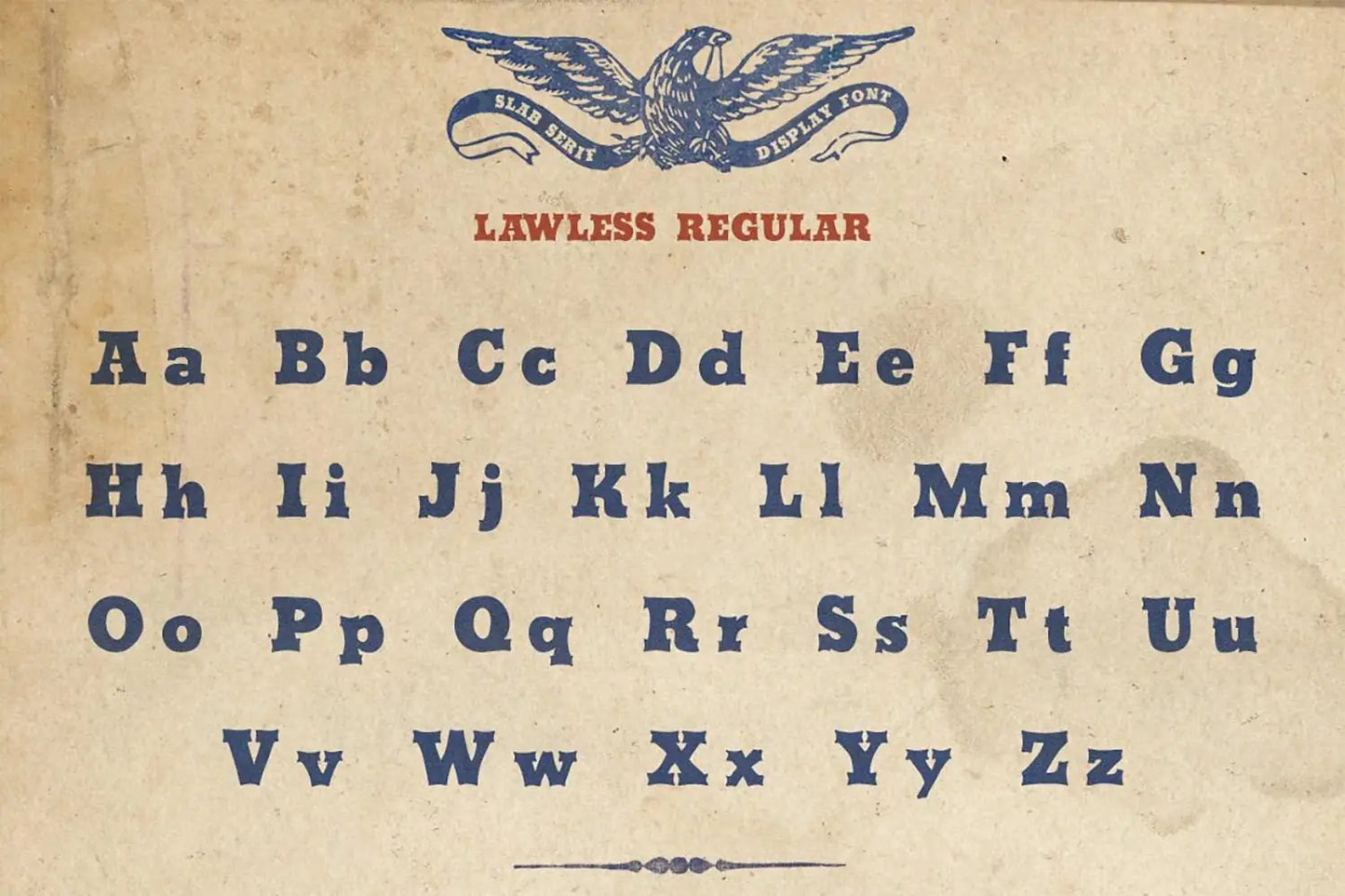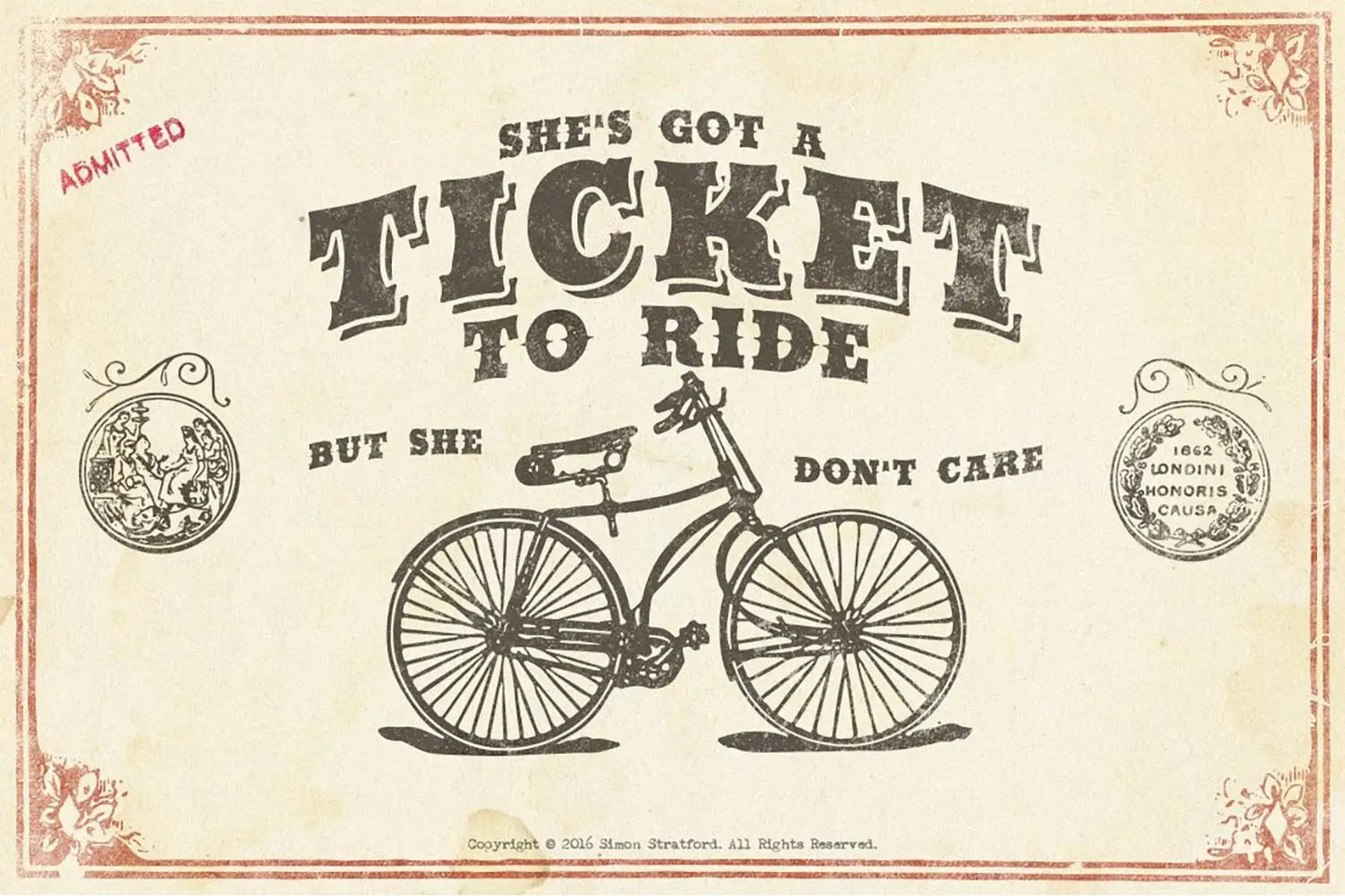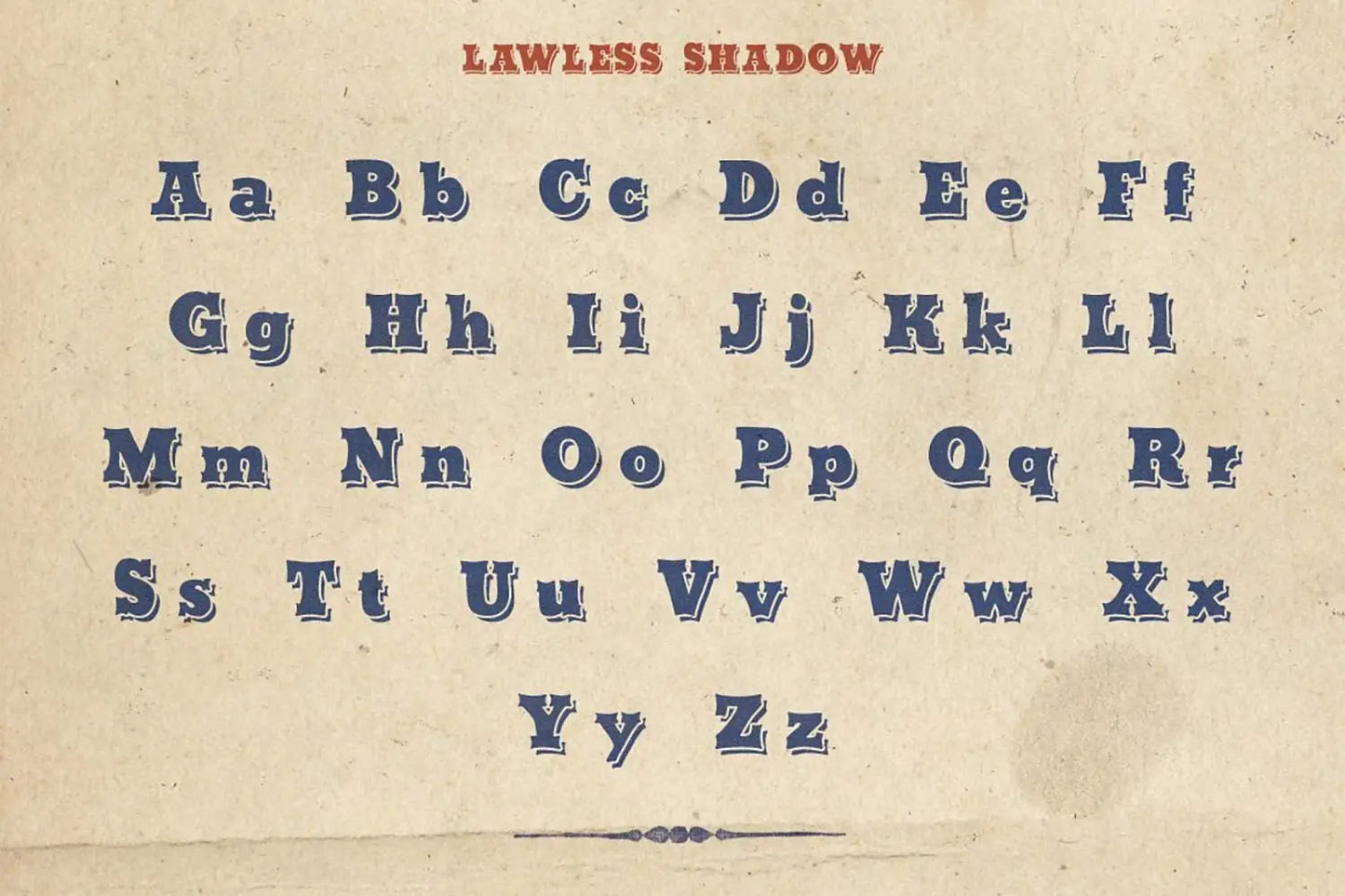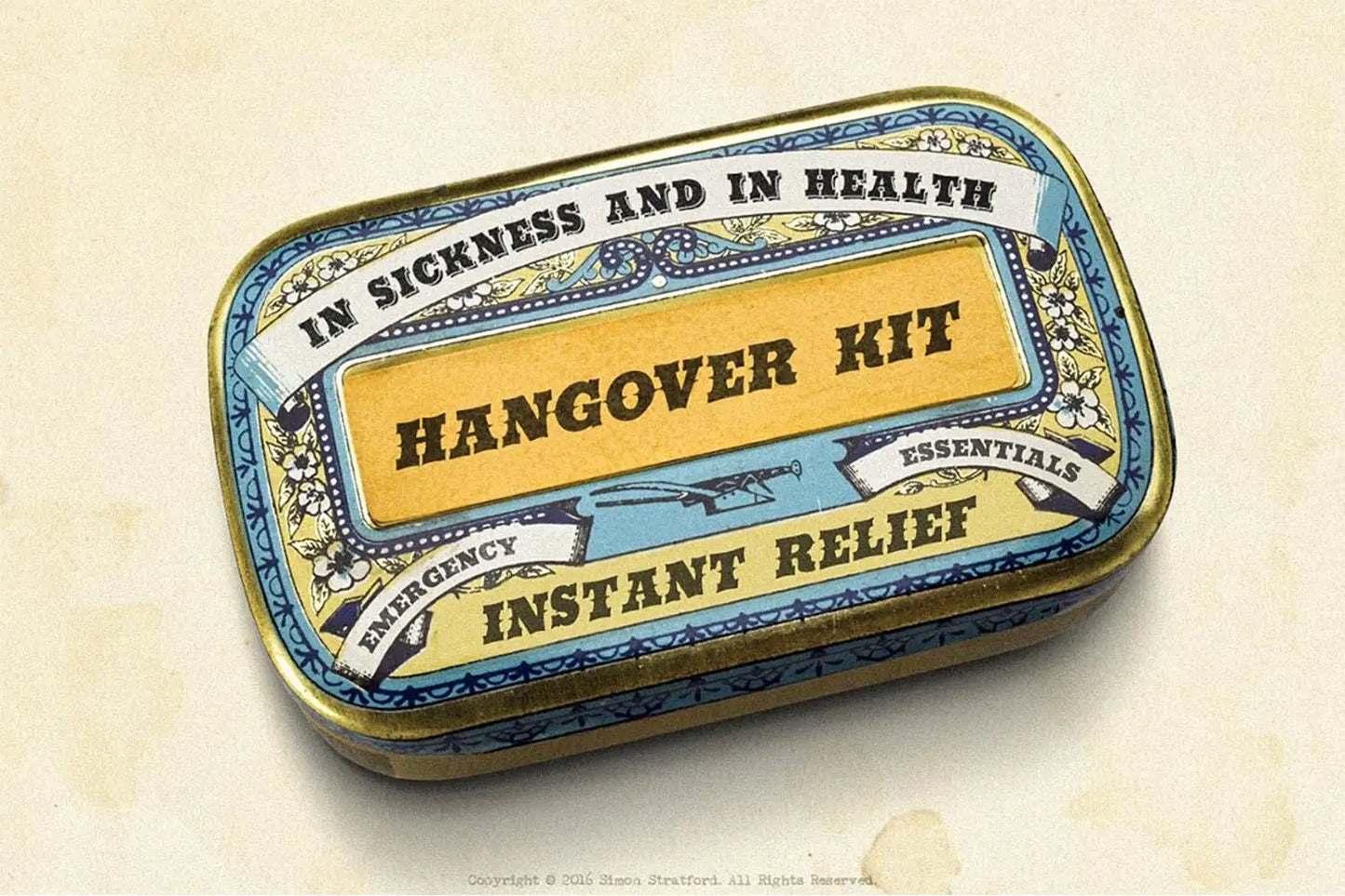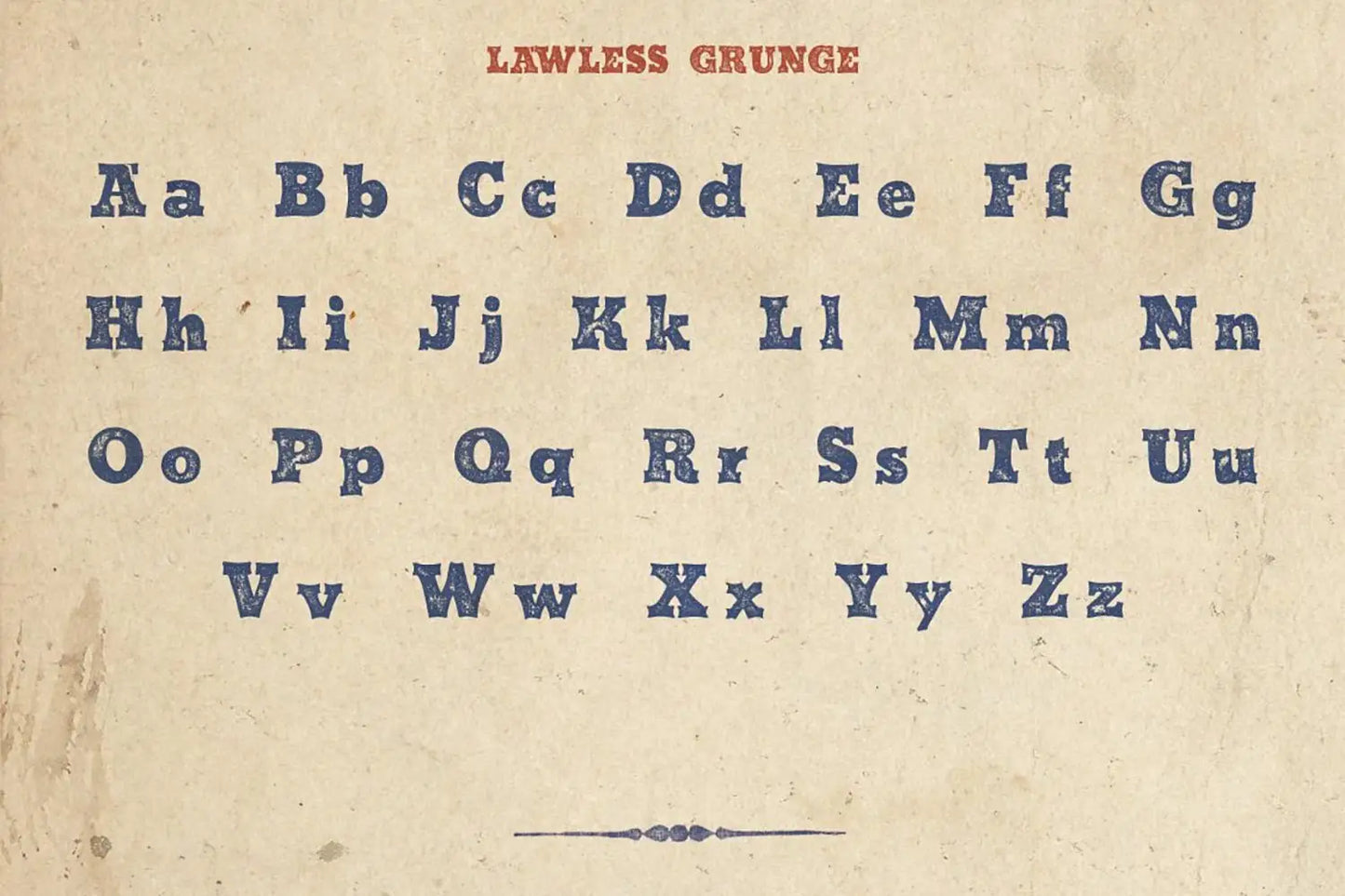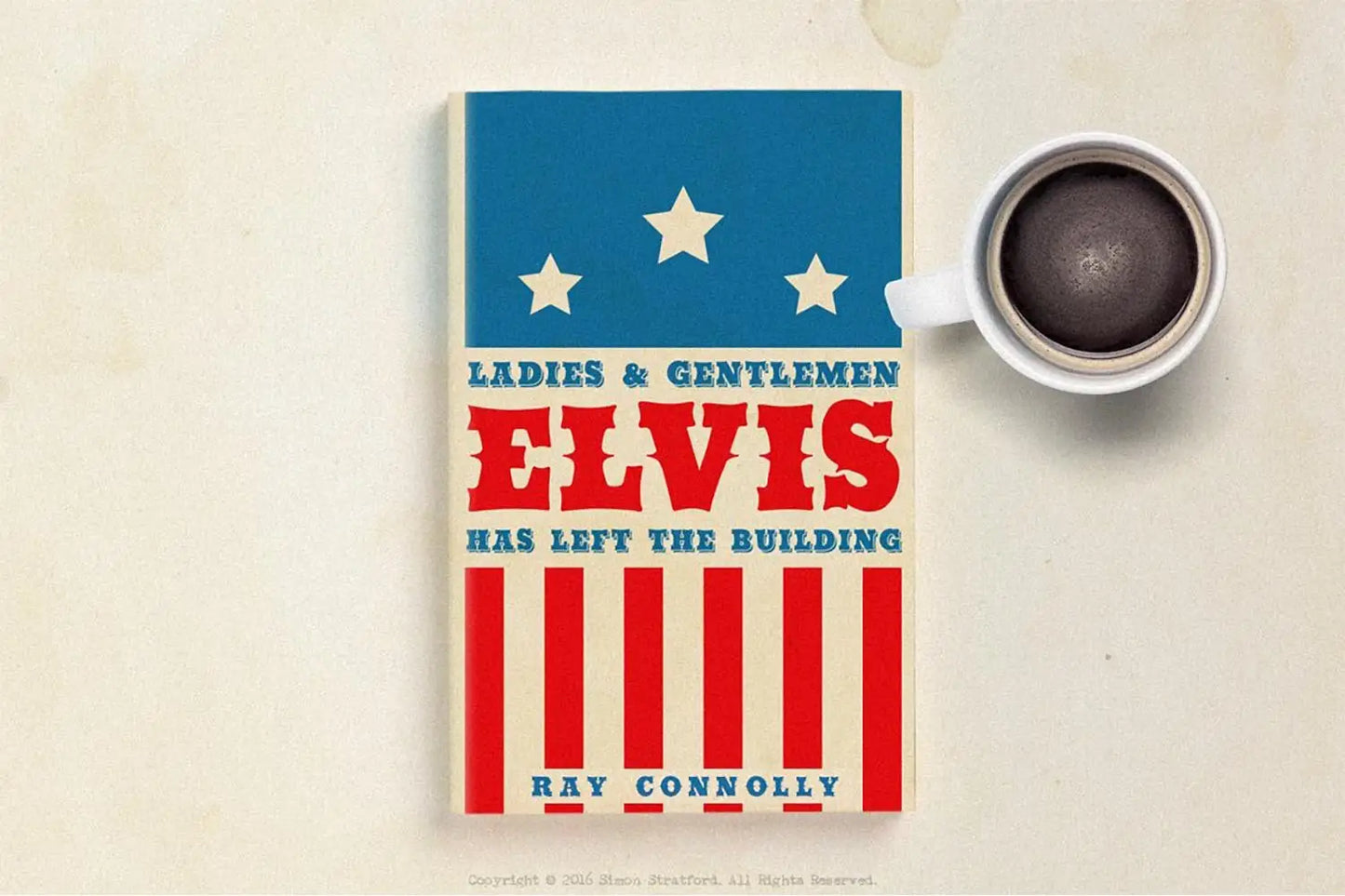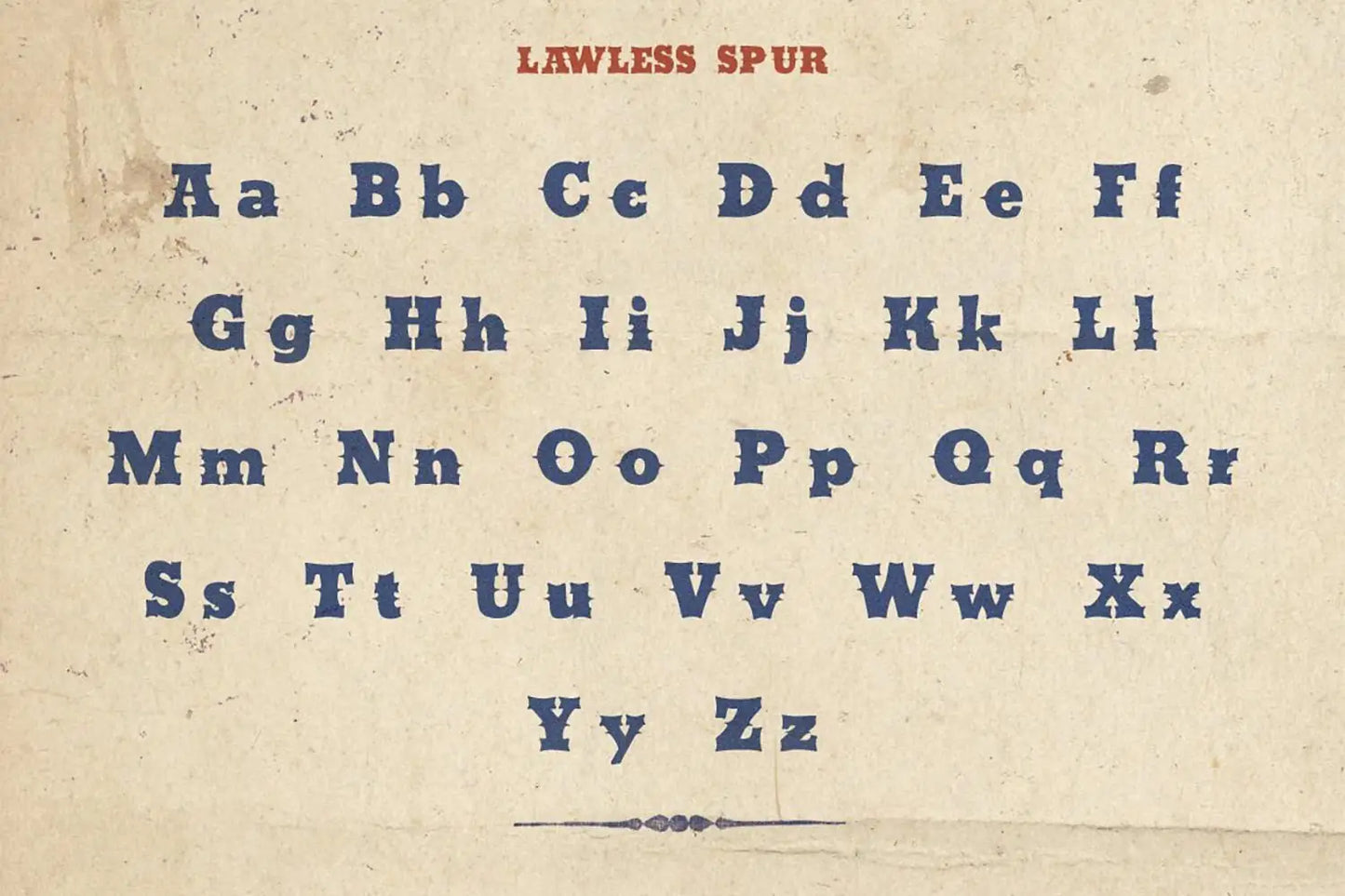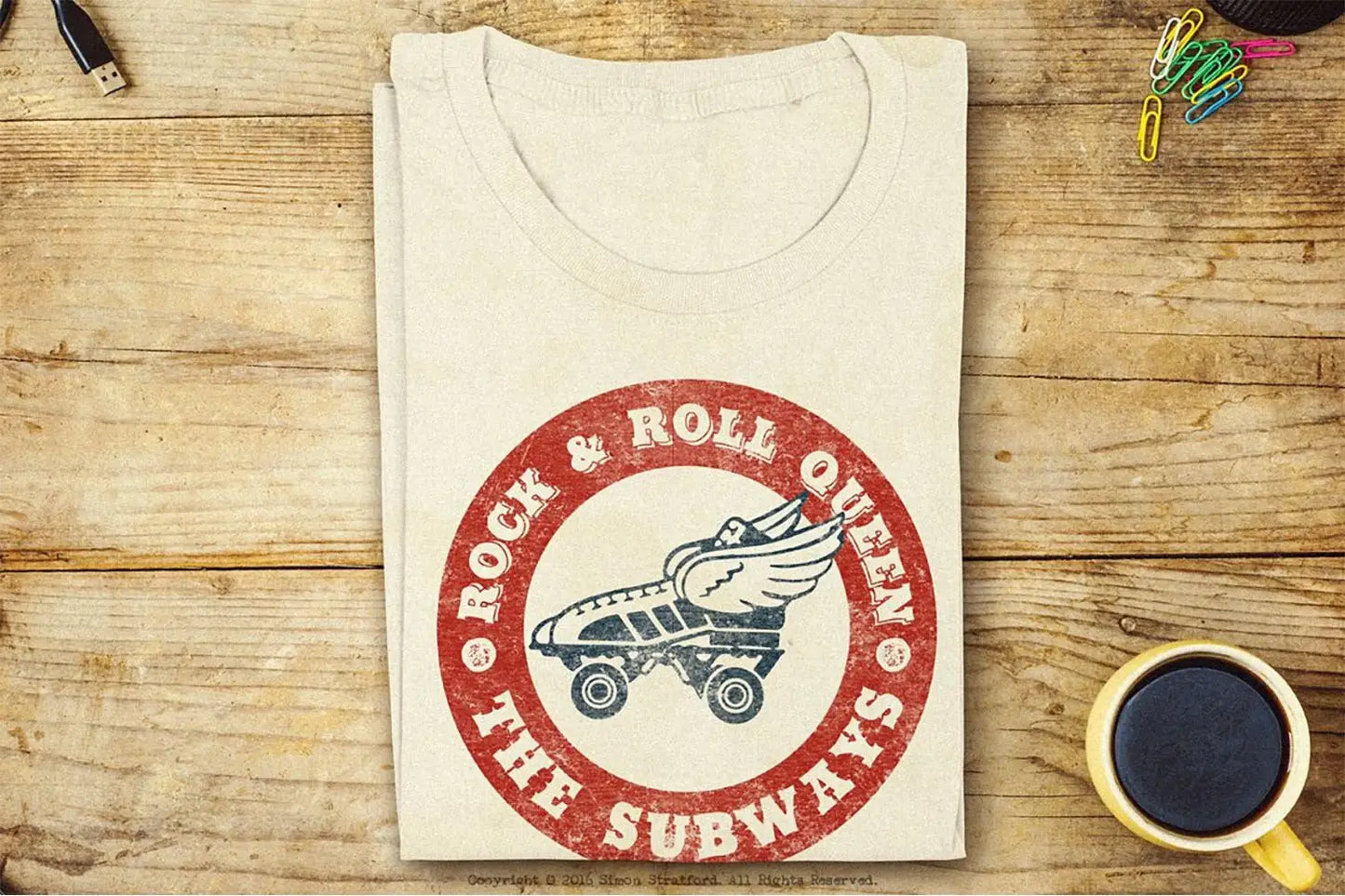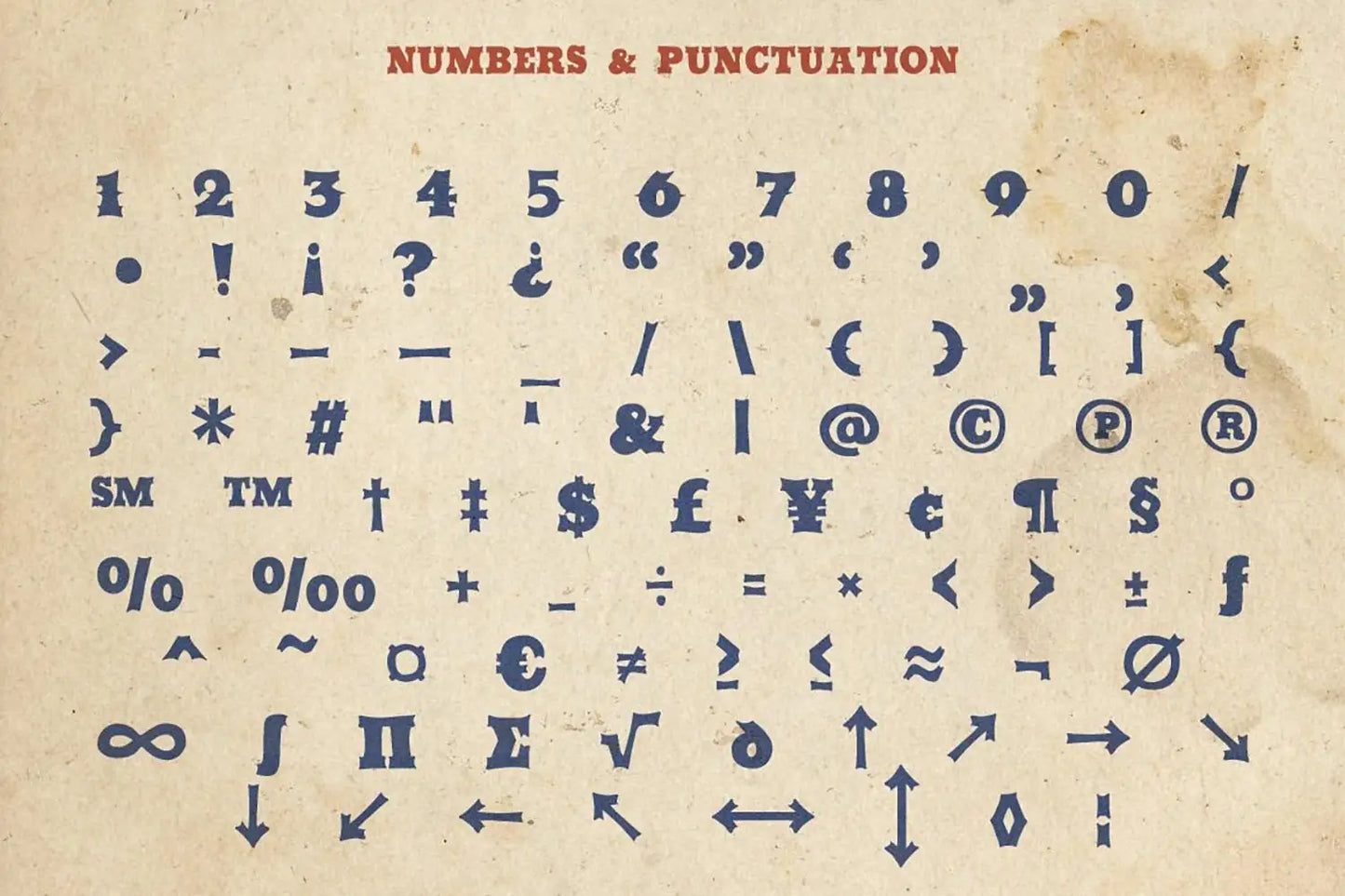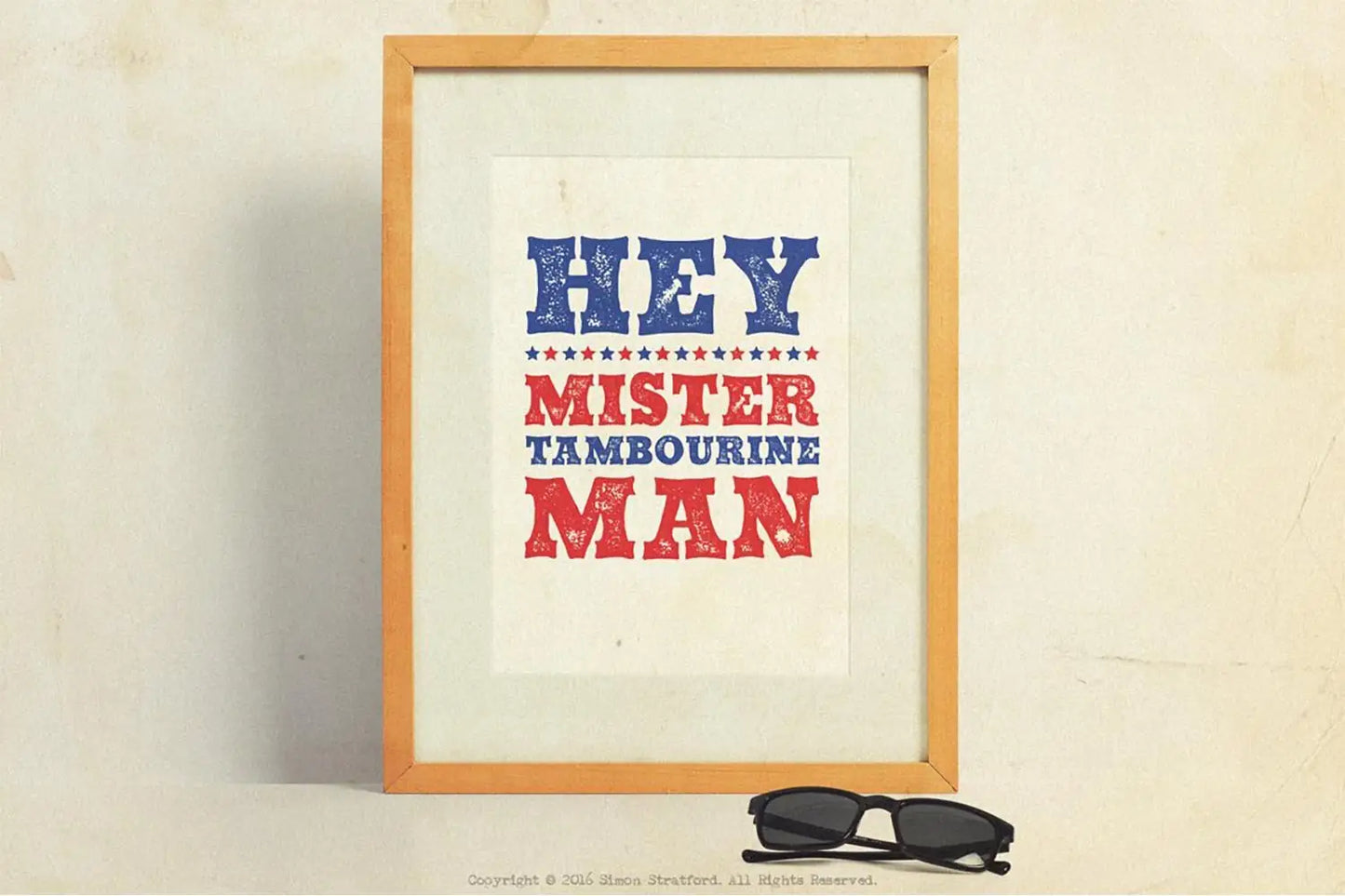
Lawless
About Lawless
Mixing elements from the typography of early 19th-century American wood type, my latest font, Lawless, embodies a distinct vintage Americana charm. It is intentionally designed to evoke the authentic essence of American signage, and it has a weathered and worn appearance that just adds to its charm.
Lawless font usage
Lawless can add a touch of rugged, adventurous charm to your design projects. It would be perfect for Posters, flyers for rodeos, album covers for county music, book covers, packaging, logo designs and anything where you want that western heritage look and feel.
Lawless comes in four different styles:
- Lawless Regular
- Lawless Grunge (with texture)
- Lawless Spur (with side spur)
- Lawless Shadow (with extruded 3D shadow)
Easily mix and match them to get the look you're after.
If Lawless Font were a celebrity
If the Lawless font were a person, it'd totally be Jesse James, you know? Like, it would flaunt this vibe of unapologetic rebellion and a rep for being pretty daring.
Just like how Jesse James went all-in with those train and bank heists, this font screams defiance and marches to its own beat.